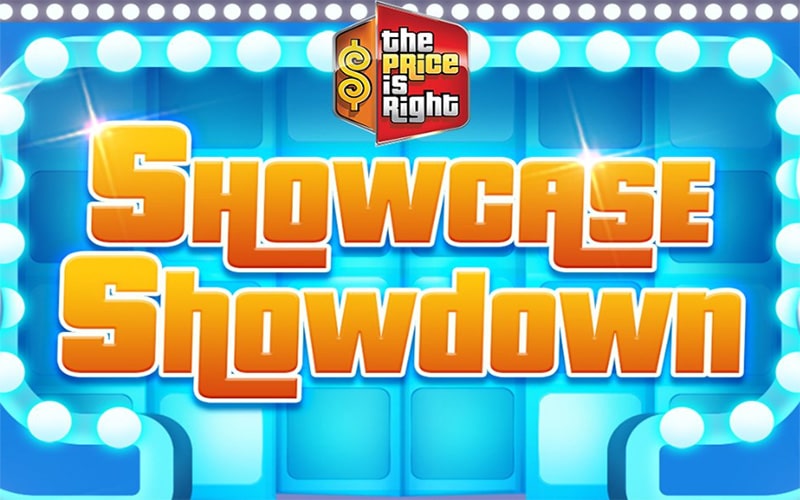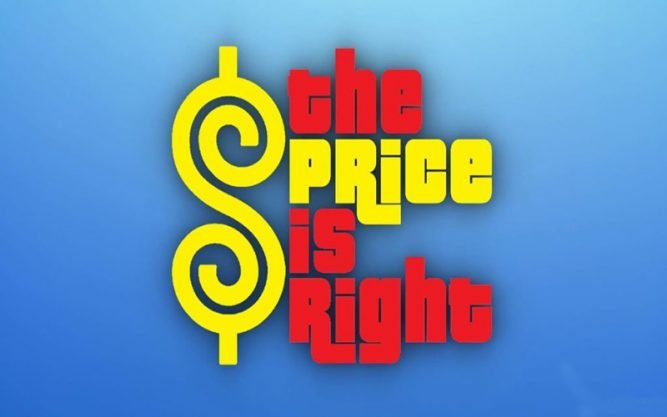
Retro Logo Typeface
The Price is Right Font is a retro and logo design font family. The amazing font is made by Raymond Larabie.  Since every letter has a similar thickness, that’s why the font is easy to read on any type of screen.
The free typeface has available only one unique style. Its squared serifs add to the sharpness of the lettering and the slightly increased width of every figure promotes a tone of digital modernity.
This font is useful for many proposed such as different video games, used in editorial news pictures, printed media, board games, posters, stickers, web graphics, game graphics, and t-shirts.
You can turn off the tail effect by disabling the ligatures features in your application. In 2019, support for Vietnamese, Greek, and Cyclic languages was added and you can download free anchor fonts.
Price is Right Font
Font Name:Price is Right Font
Style:Logo, Retro, Typeface
Font Designer:Raymond Larabie
This free font is available in one weight and is ideal for both on-screen and off-screen texts and products. A “present-day” typeface family for text is particularly designed for easy reading on any computer or device.
This font is great for, on the doors, the dollar sign below the price, and the letter “price” is in yellow and it allows you to install fonts on your computer and use them to create videos, signs, logos, and much more.
In small bodies of content it works nicely for reading, and in headlines presents interesting details to trap the eye. You will like Molot Font which was released by Jovanny Lemonad.